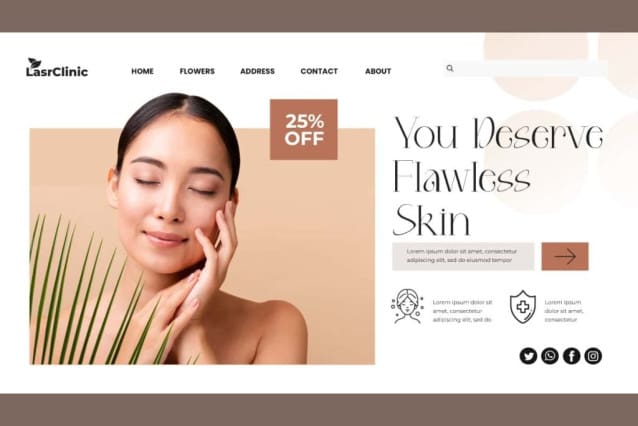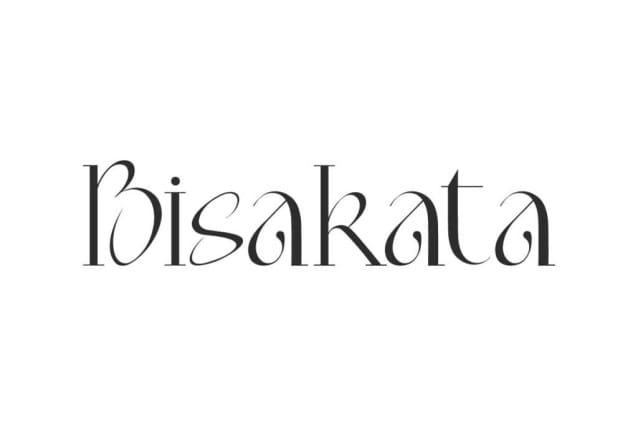
Bisakata Font
Bisakata Font is a sophisticated beautiful display serif font with a touch of seamless elegance. This typeface with a calm atmosphere will be useful in any design such as, apps, booklets, brand design, cover, flyer, headline, invitation, label, modern logo, packaging design, poster, postcards, quotes, screen printing, signage, stationery, sticker, typographic design, website, and many more.
Bisakata Font includes a complete set of Uppercase and Lowercase basic characters, Numbers, Punctuation Marks and Symbols. It’s a clean and classy choice to complement whatever your industrial background, such as artist, beauty clinic, clothing brand, content creator, cosmetic, fashion, florist, furniture, graphic design, photography, spa salon, wedding, etc.